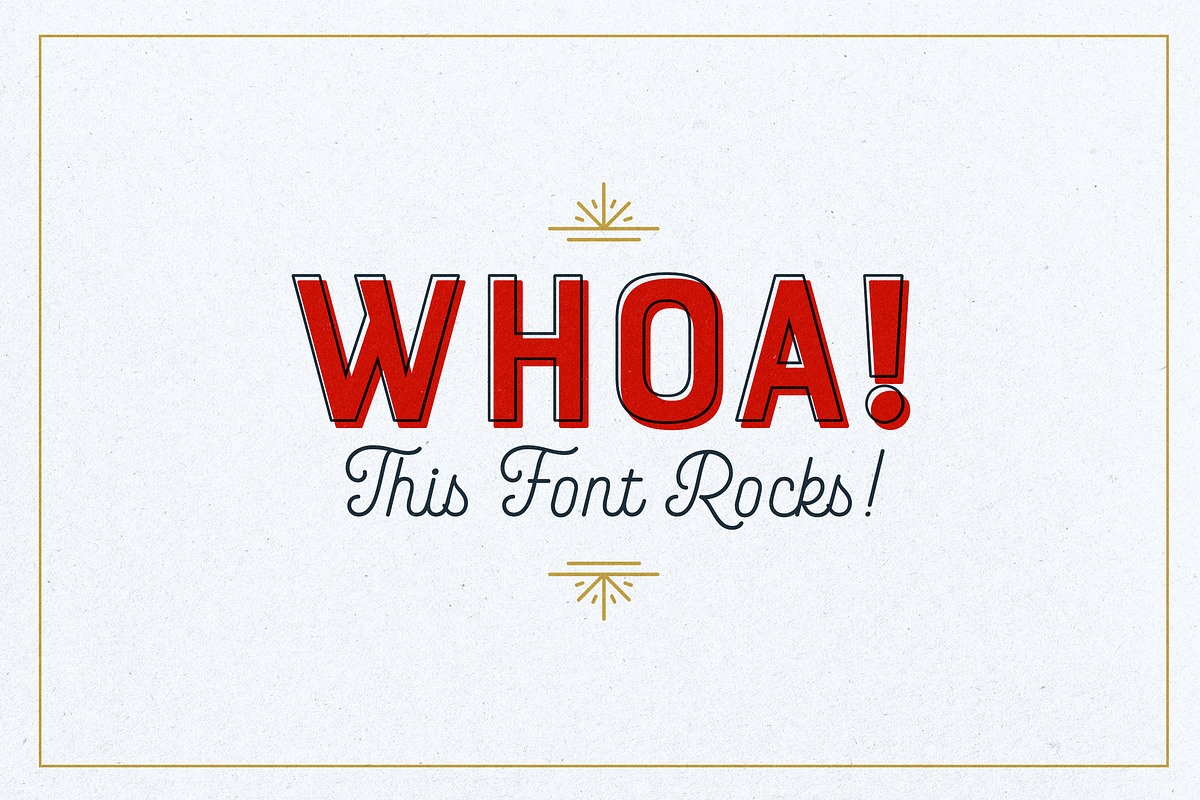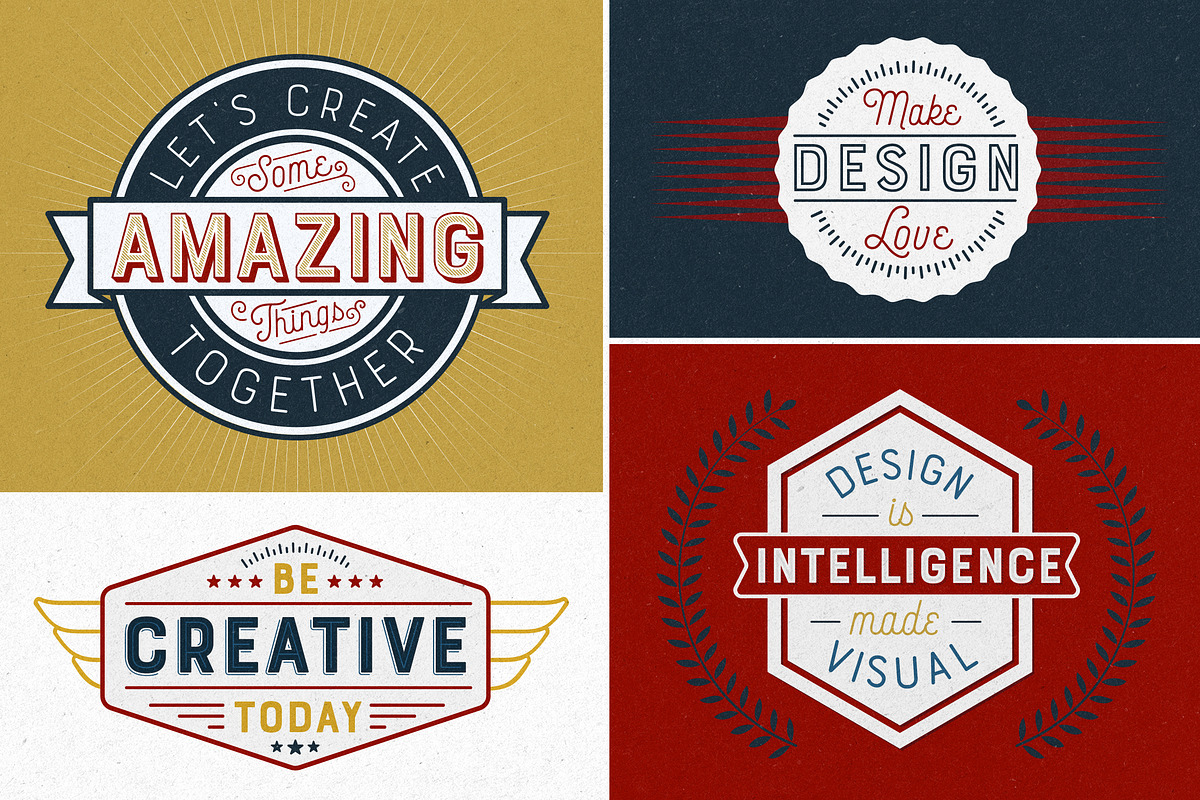
Bourton is a new typeface by Kimmy Design. It’s the sans-serif cousin to Buford: https://creativemarket.com/KimmyDesign/153899-Burford-Pro-Pack
This basic family is a simplified version of the extended type family. It can be used in any program, and omits the fonts that require advanced editing applications.
Bourton Fonts
- Bourton Base
- Bourton Inline
- Bourton Marquee
- Bourton Dots
- Bourton Strips (A, B and C styles)
- Bourton Outline (Light, Medium and Bold)
- Bourton Line (Light Medium and Bold)
- Bourton Drop (Shadow, Line, Extrude, Stripes A and B)
Bourton Script
- Light
- Bold
Bourton Extras
Languages for Bourton are Latin and Latin Extended.